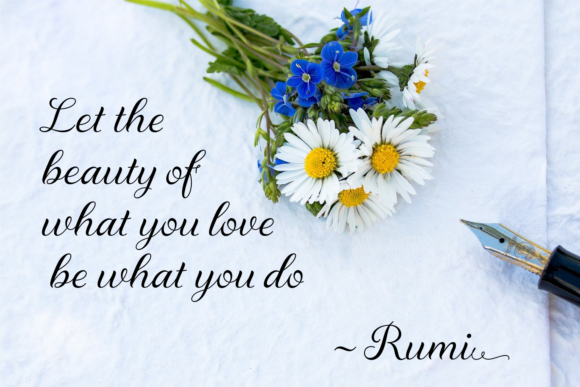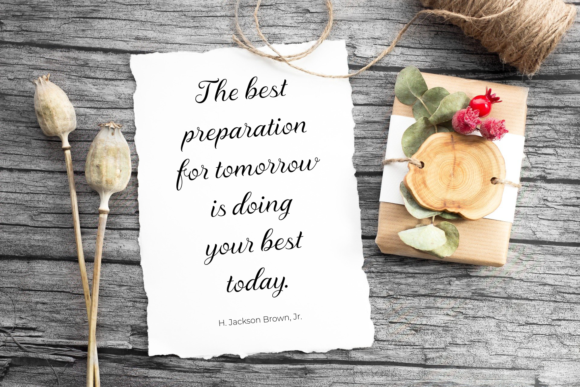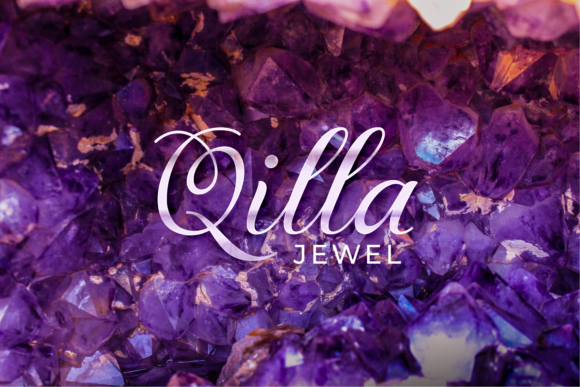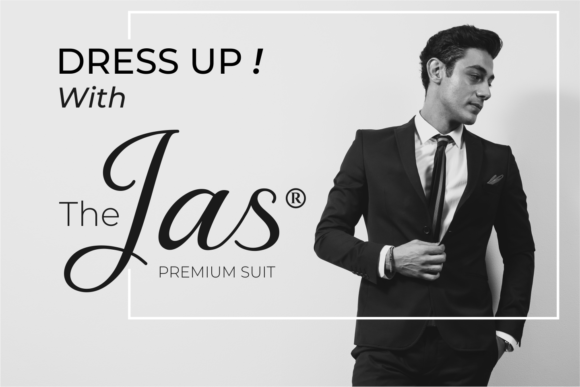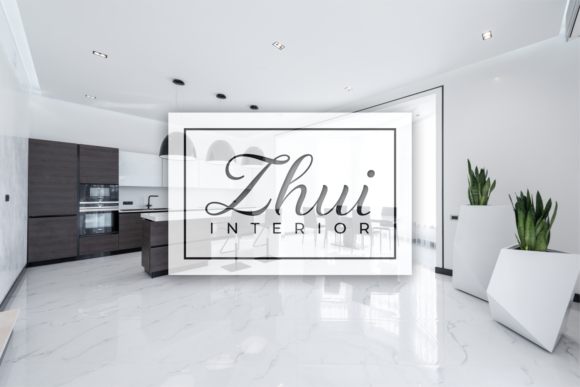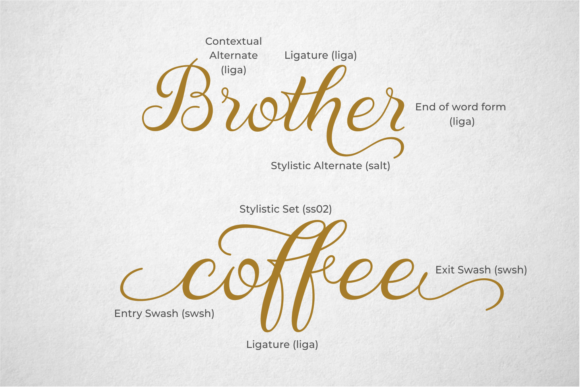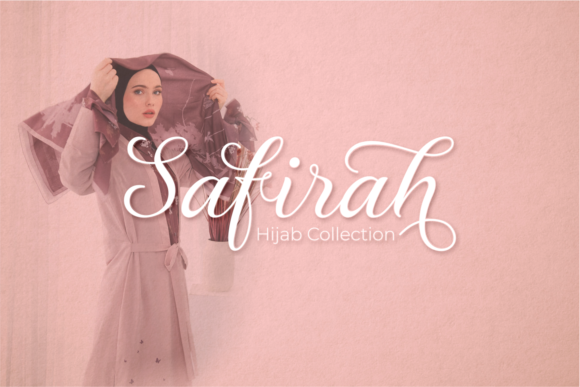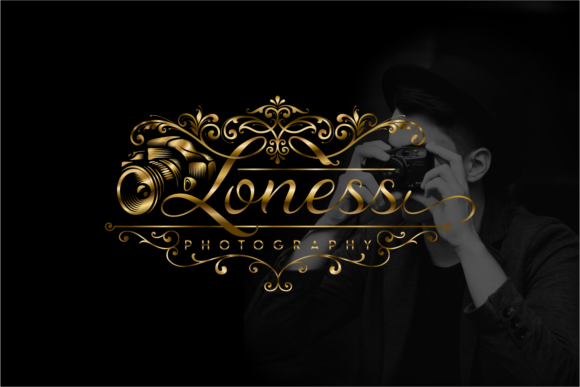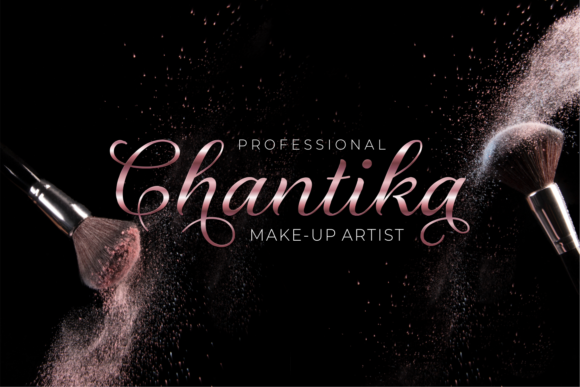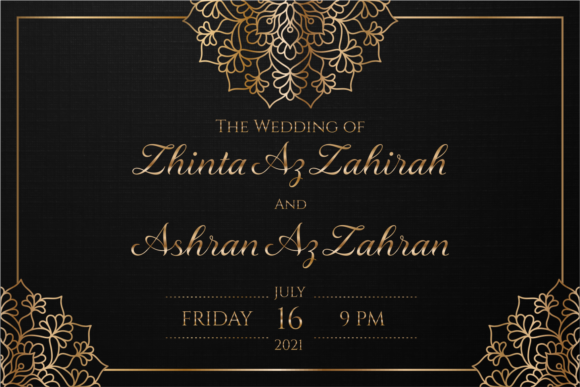
Maghfirah Font
About Maghfirah Font
Maghfirah is a delicate and elegant handwritten font. Its distinct and well rounded letters make this font a masterpiece. Fall in love with its incredibly versatile style and use it to create spectacular designs!